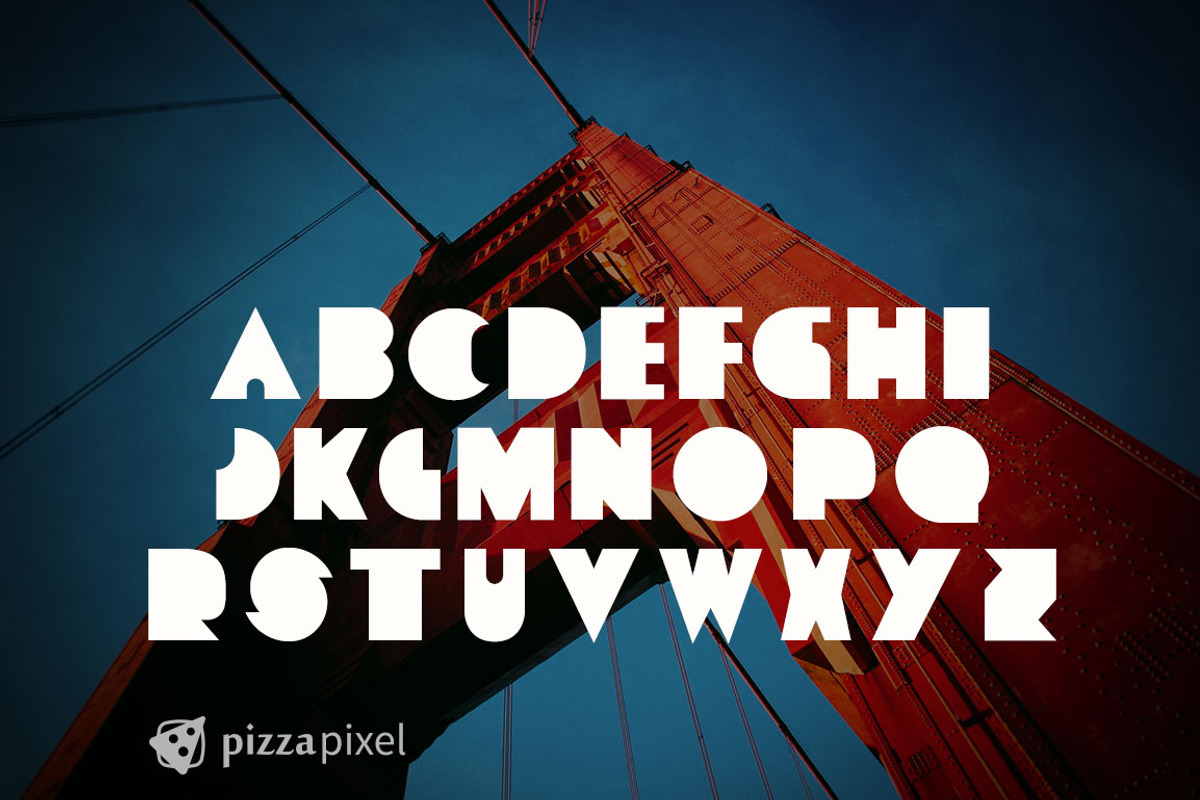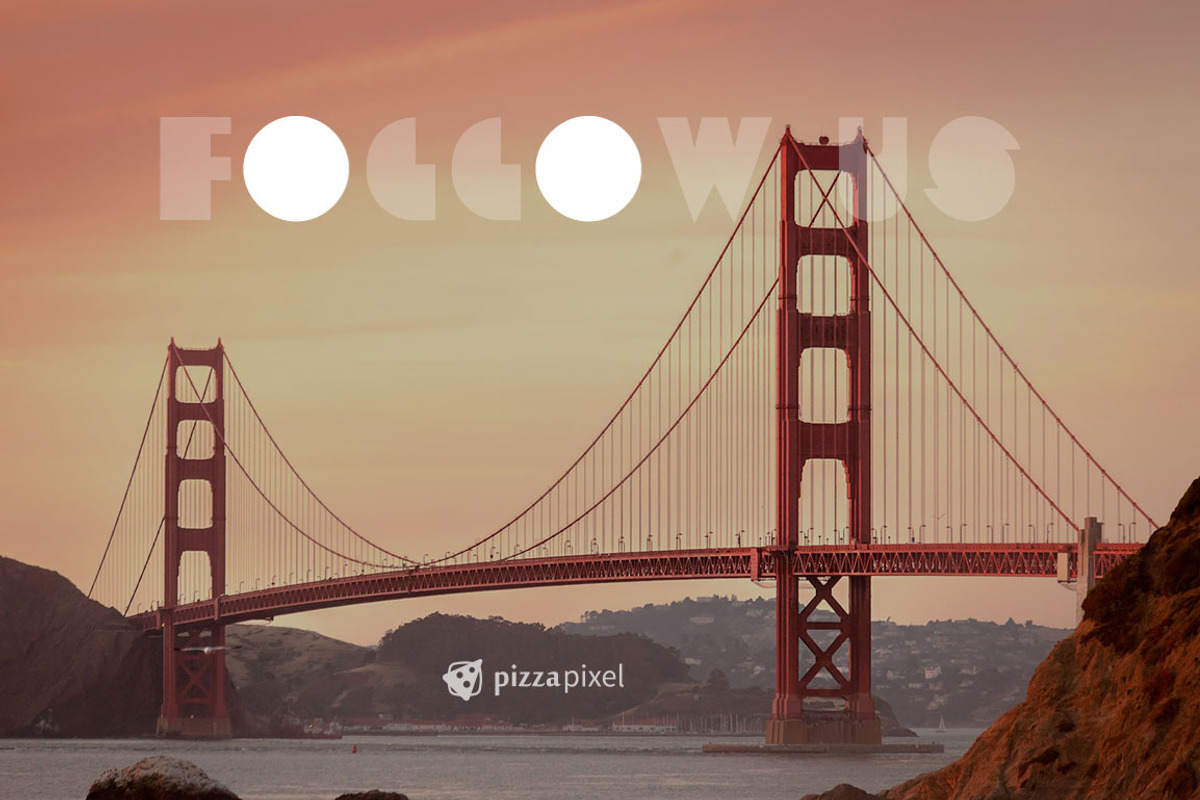
PowerPoint Font (SALE)
PowerPoint Font (SALE) by Pizza Pixel is a font selected for branding, posters, packaging, typography.
- It's a cool and different Uppercase, perfect to use in posters, t-shirts, clothing designs, branding, invitations, cards and works great as
Why PowerPoint Font (SALE) is worth a look
PowerPoint Font (SALE) by Pizza Pixel fits naturally into Branding, posters, packaging, typography.